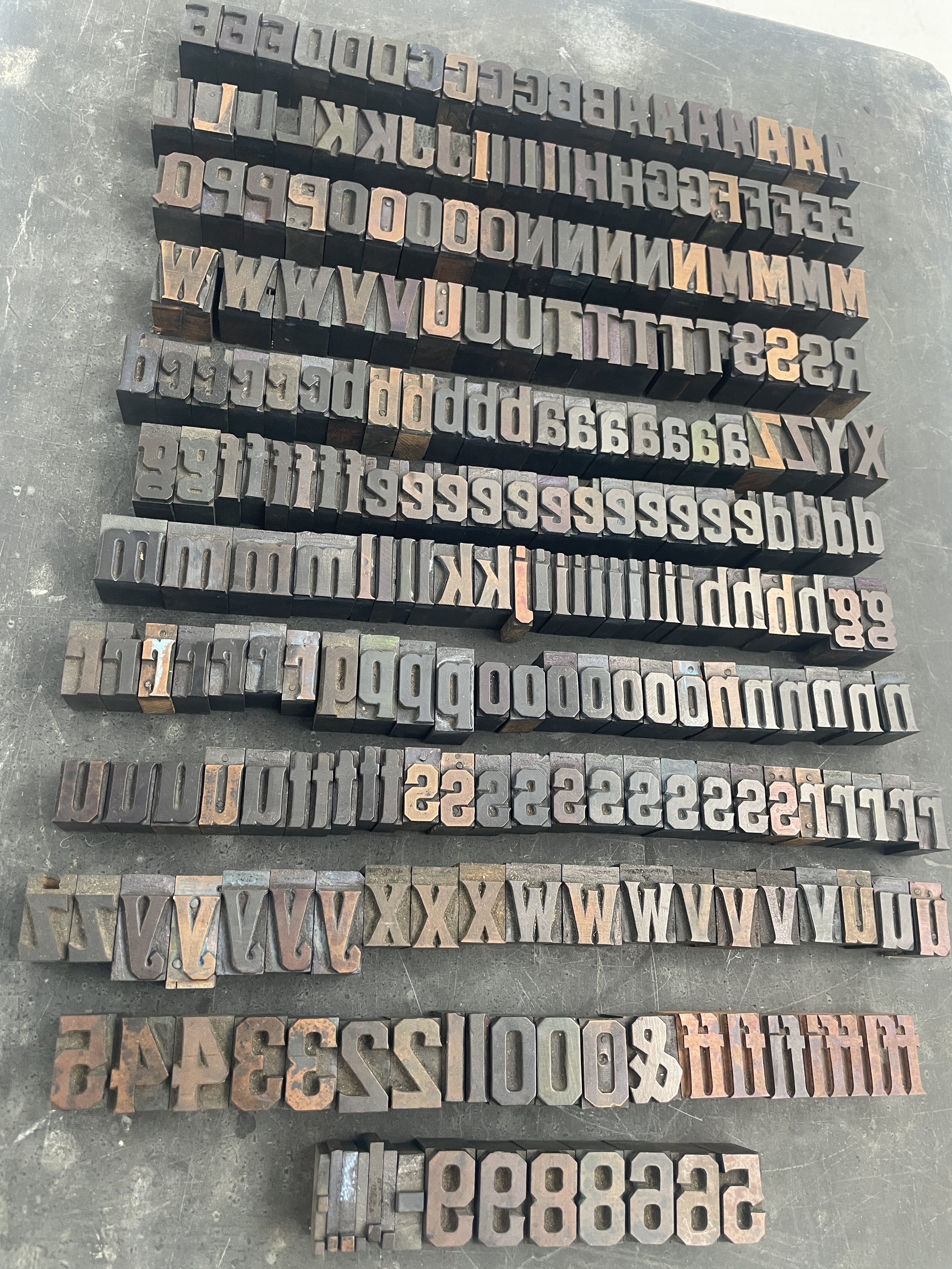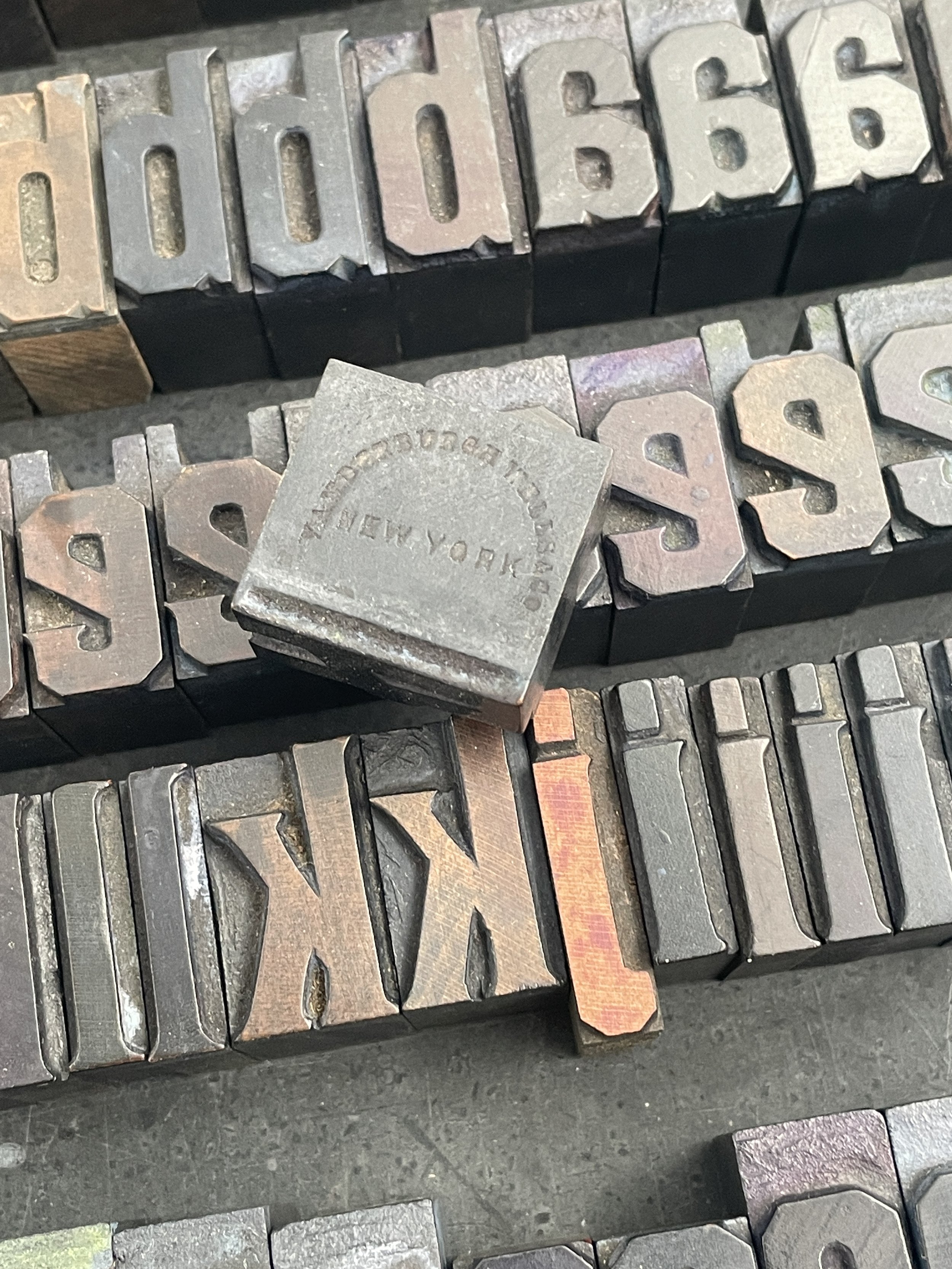
6 Line Ephesian Vanderburgh Wells & Co. Wood Type Font (W21)
A beautiful font of Ephesian 6 line wood type from Vanderburgh, Wells & Co., New York, active from 1864-1890. Includes all shown.